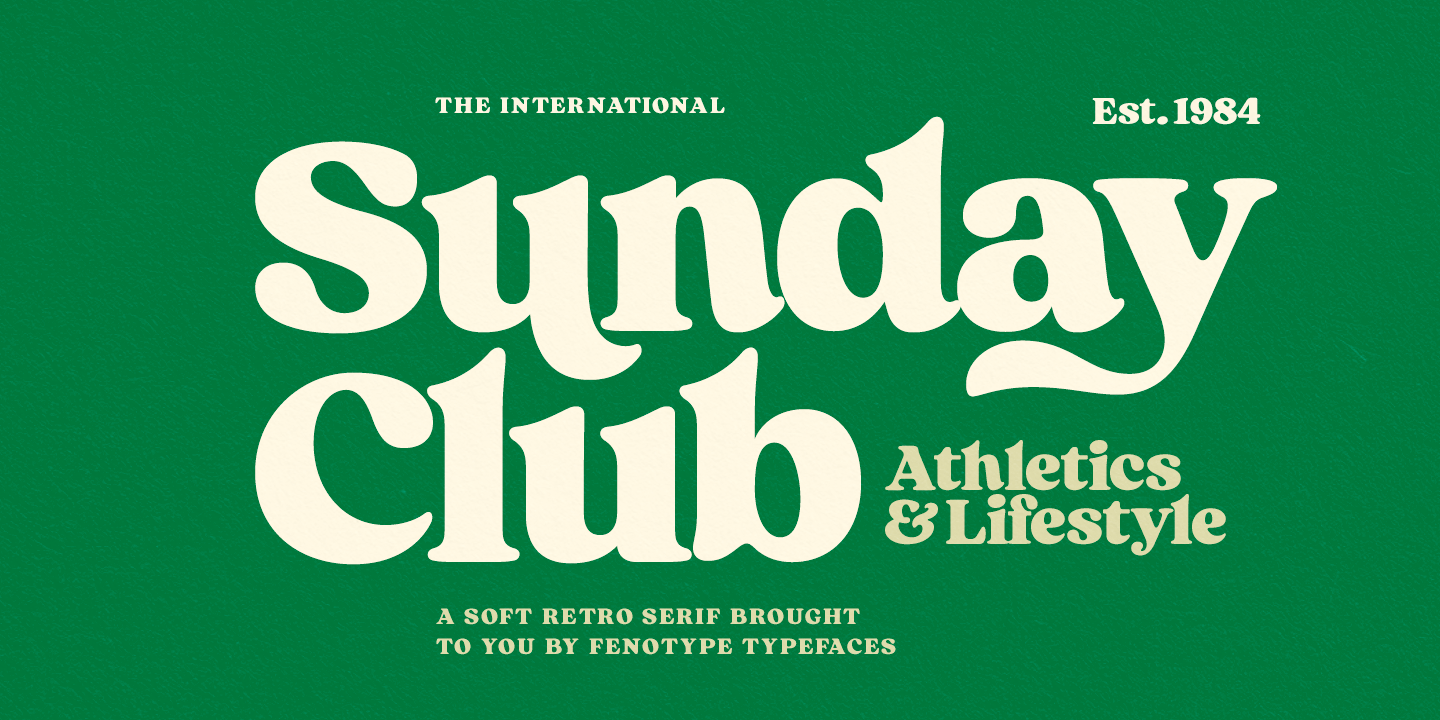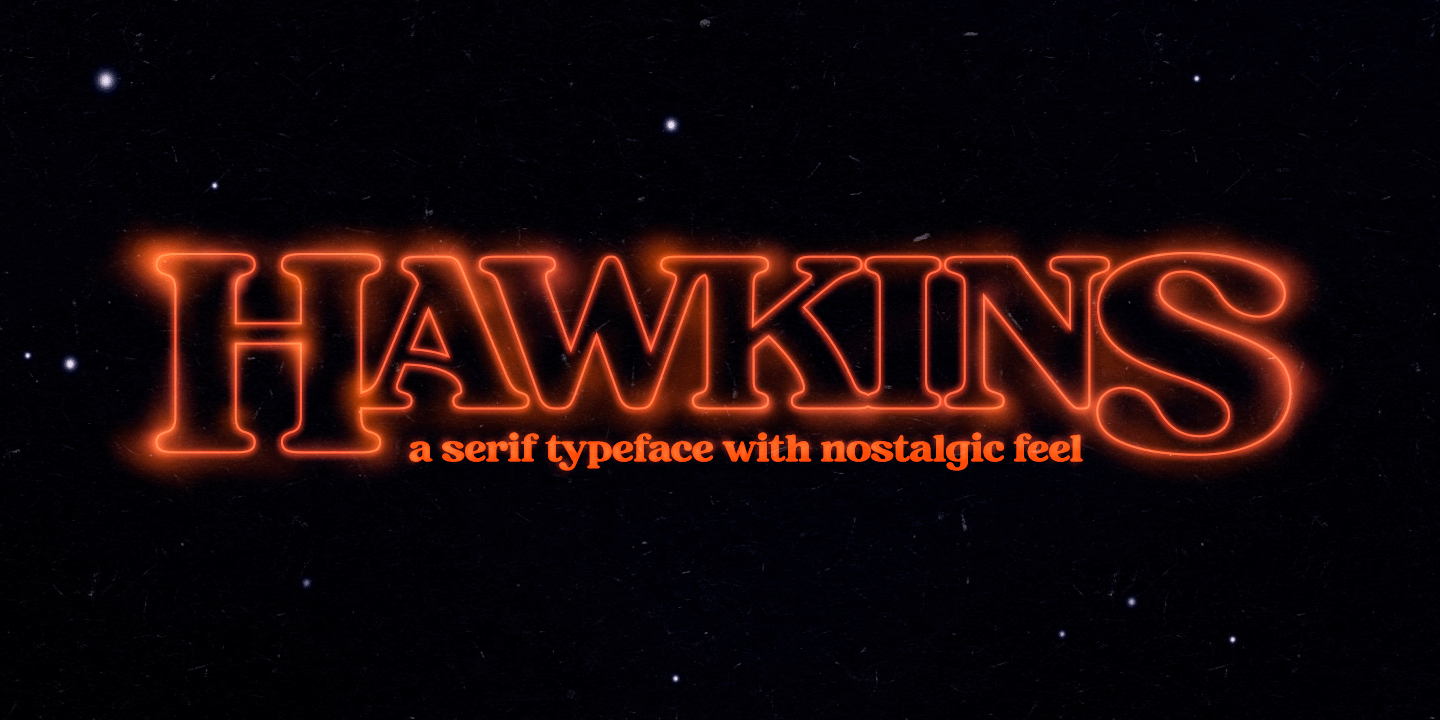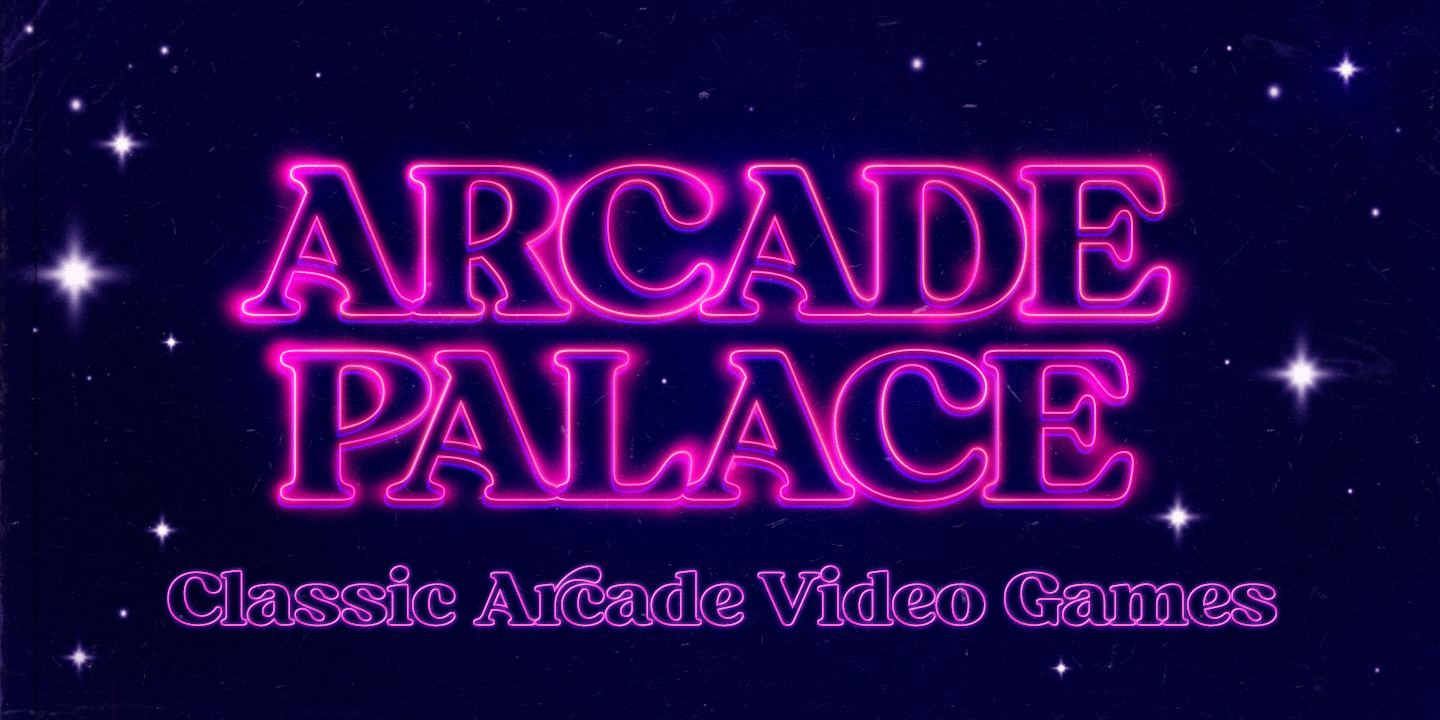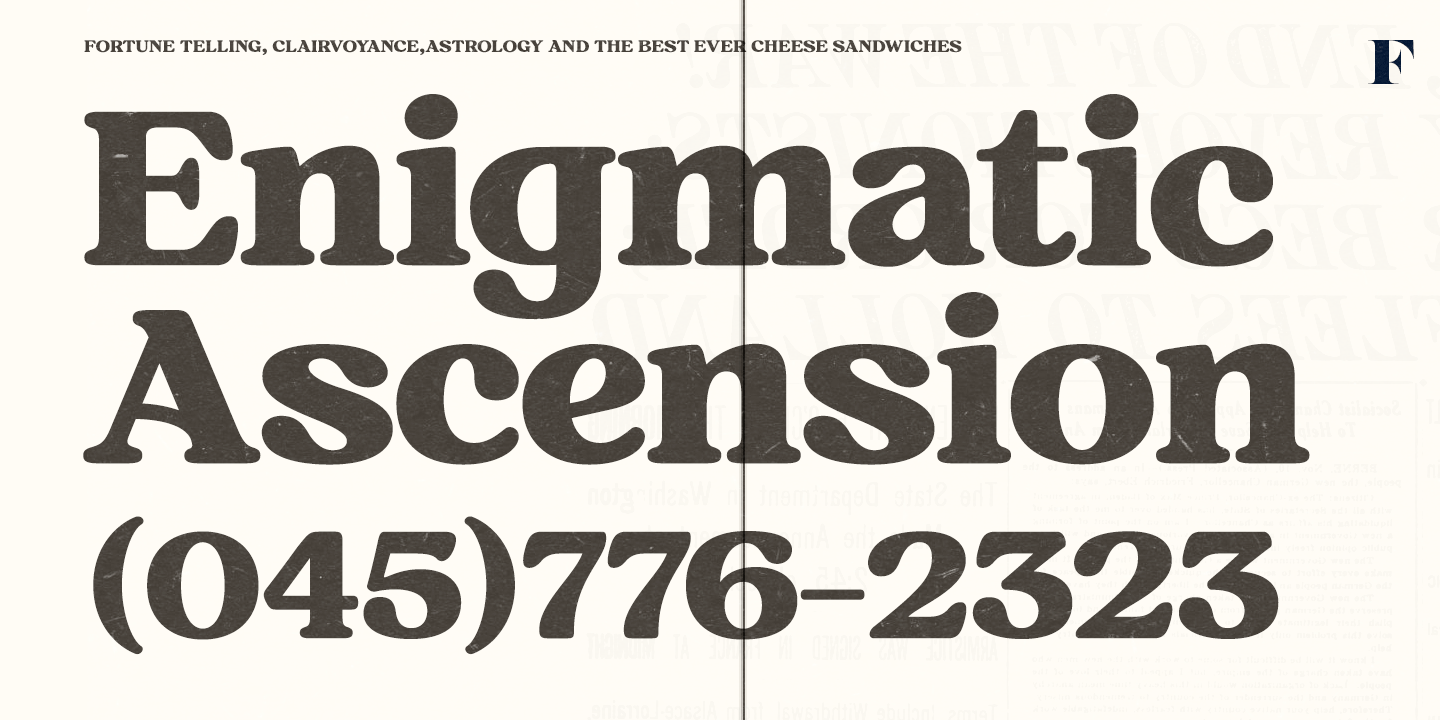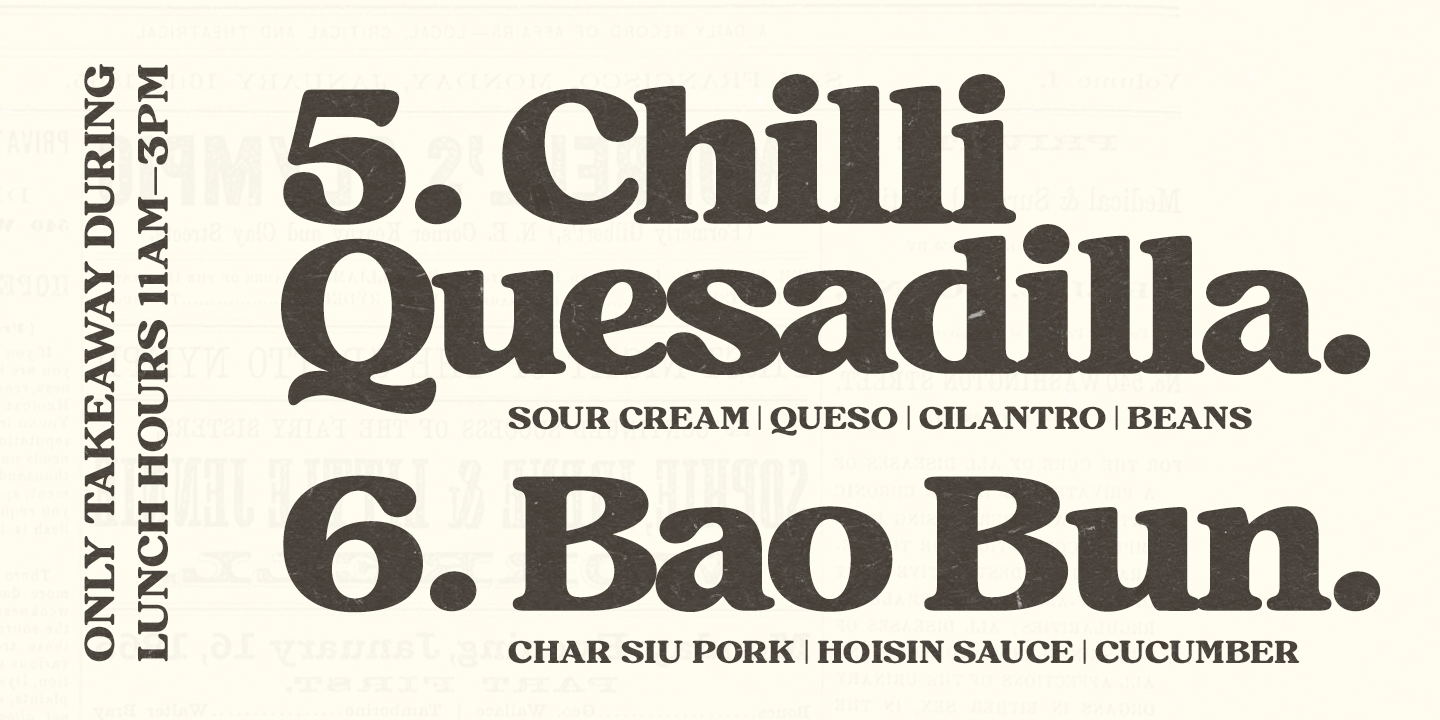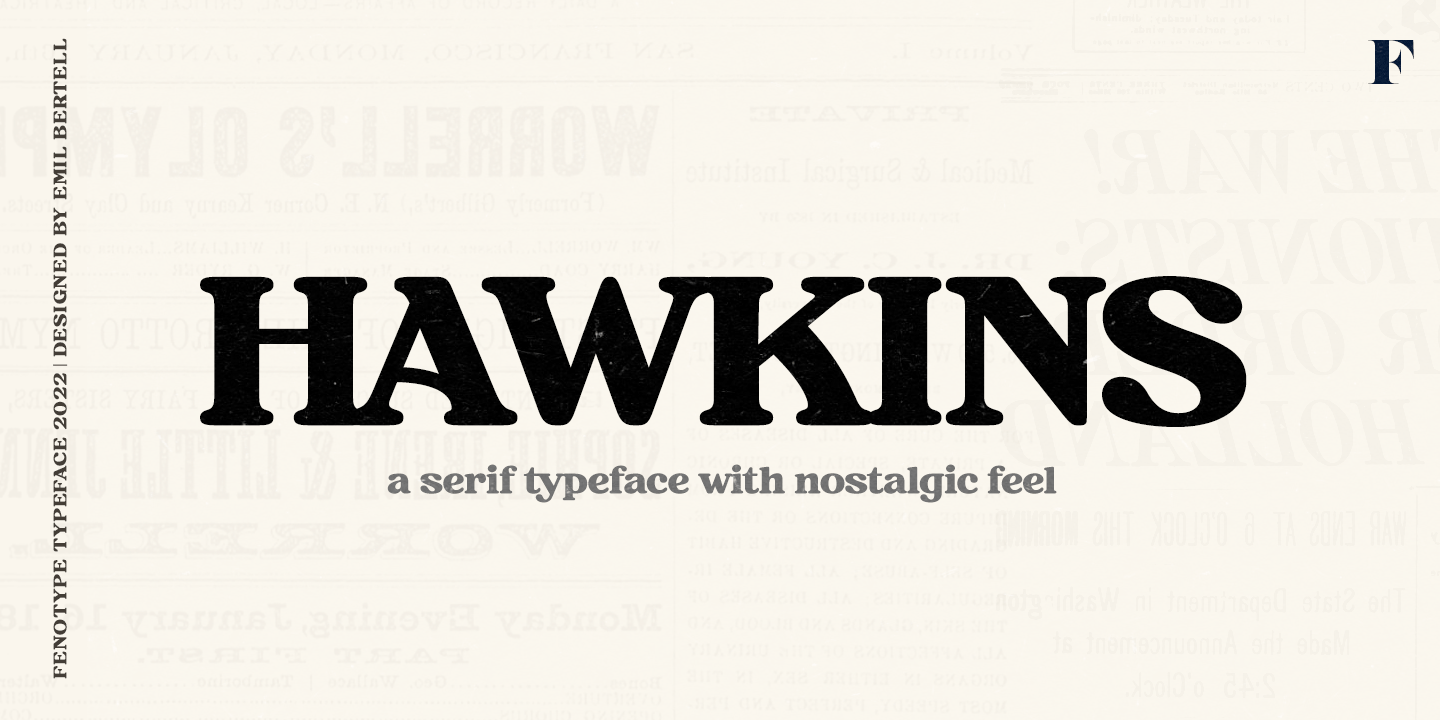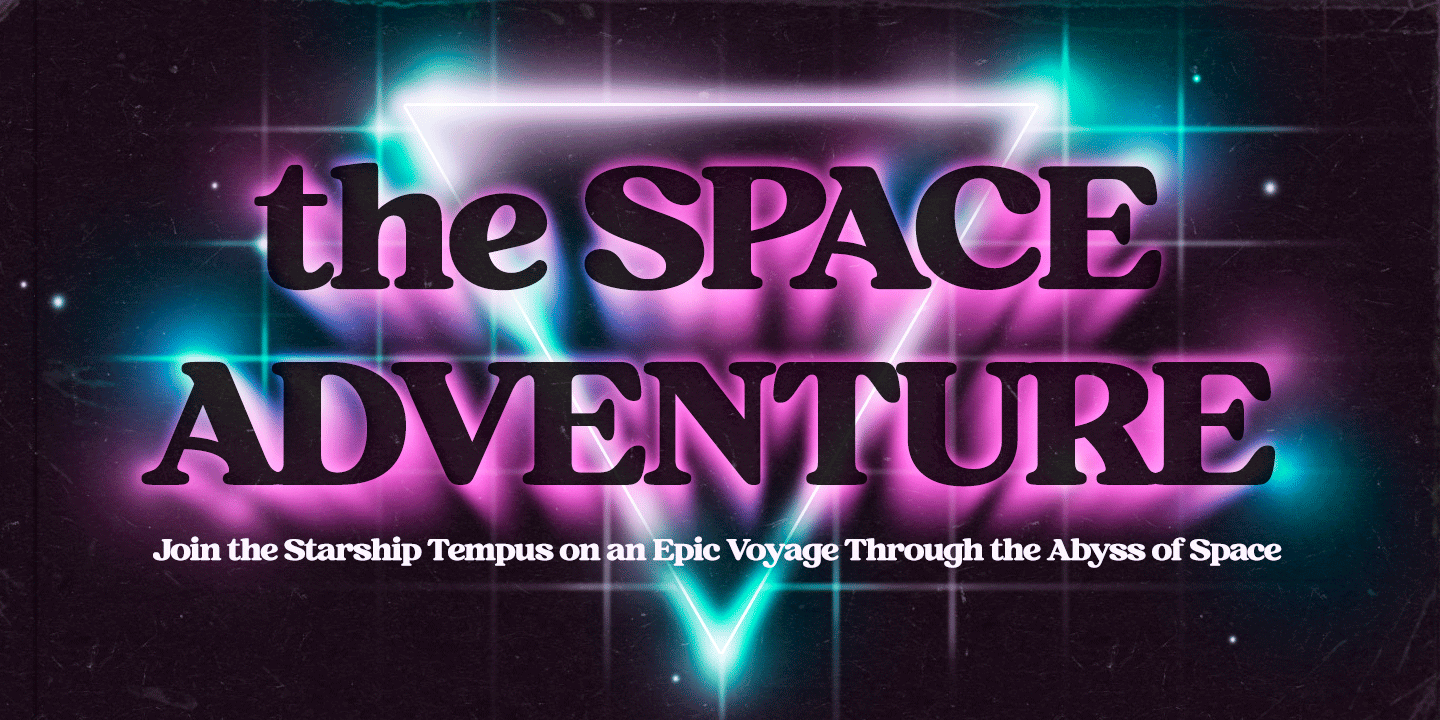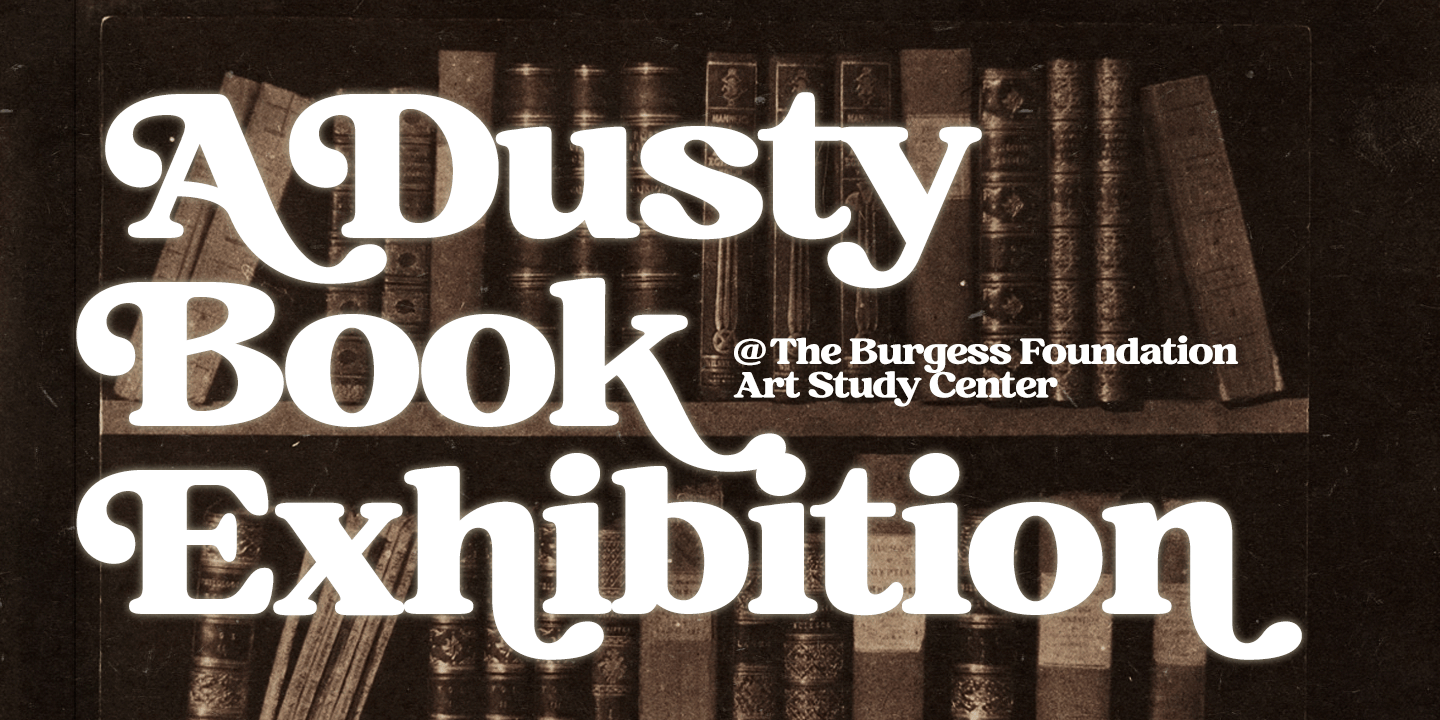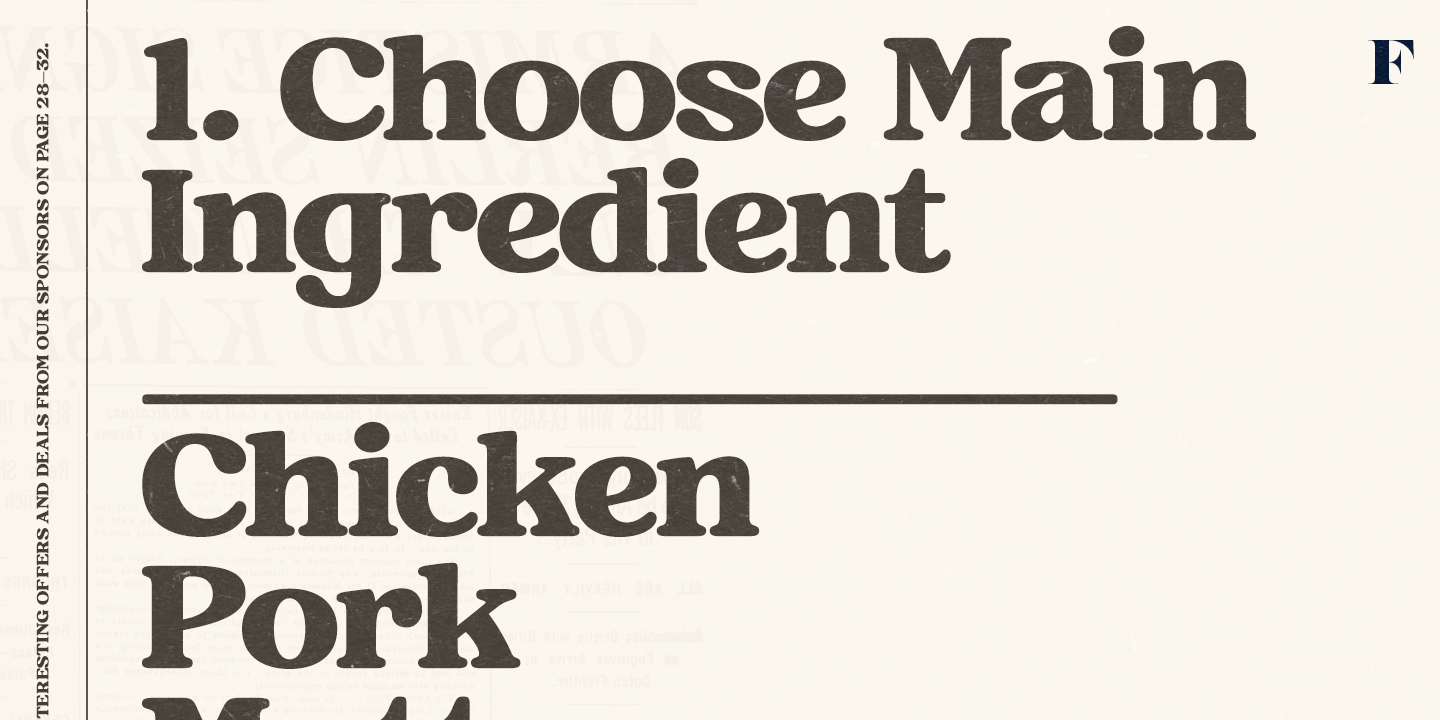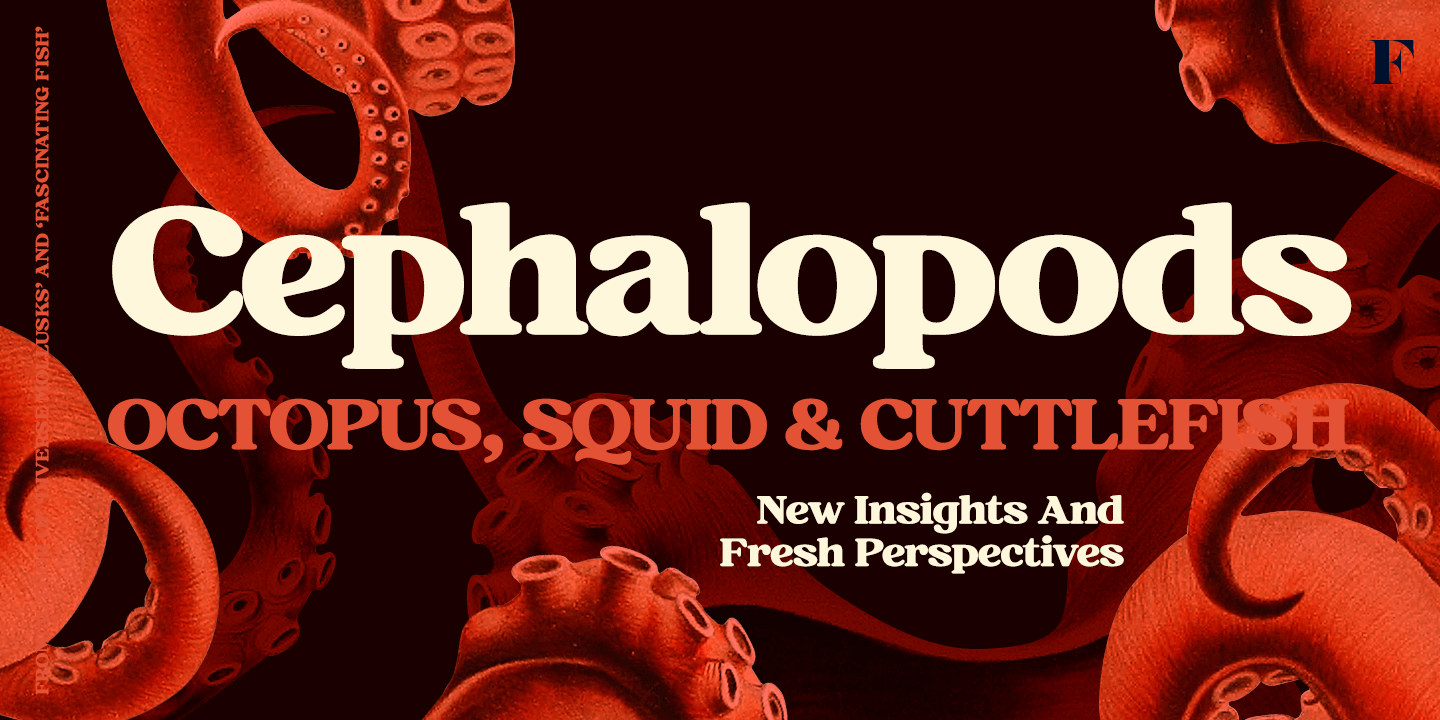
Hawkins
Hawkins is a rounded serif combined with small hints of Art Nouveau influence and remarkably high x-height. Hawkins takes a lot of space and is a well suited display typeface for any use from print to online and from advertising to book cover or from product design to digital posters.
Hawkins is packed with a few OpenType features -Standard Ligatures and plenty of Swash Alternates, as well as few Titling and Stylistic Alternates.